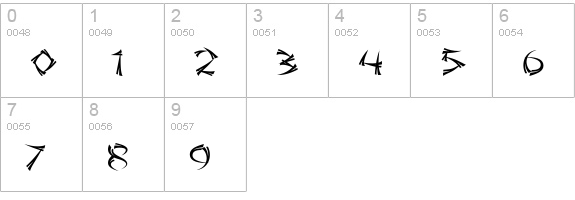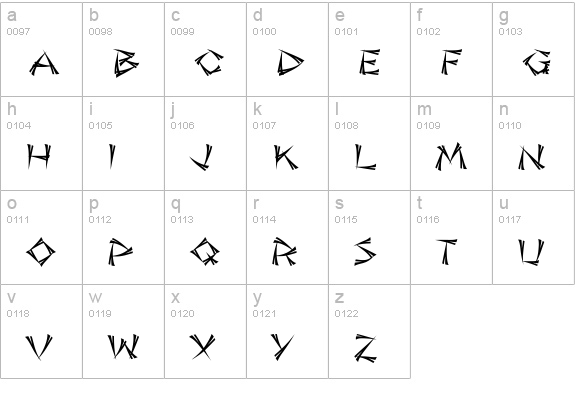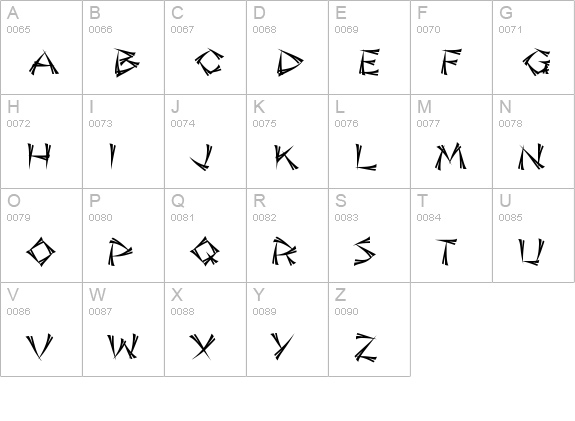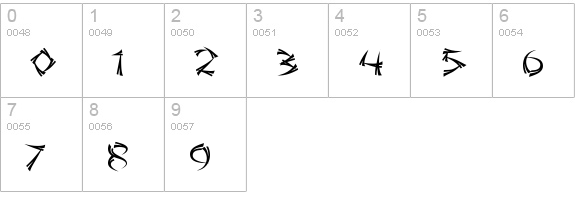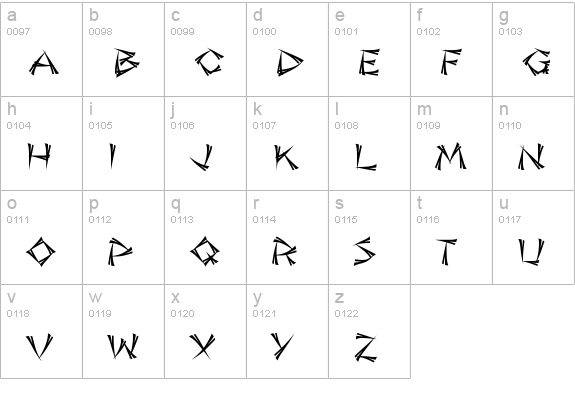
Introducing the stunningly unique Jade Monkey BTN Split font, a true masterpiece that combines elegance with a touch of modernity. This extraordinary typeface captivates with its intricate details and a captivating split design that adds a dynamic flair to any project. Jade Monkey BTN Split effortlessly blends sophistication and creativity, making it the perfect choice for branding, logos, invitations, and so much more. Its versatility knows no bounds, as it seamlessly adapts to both digital and print mediums, ensuring that your message is beautifully conveyed every time. But what truly sets Jade Monkey BTN Split apart is its remarkable feature - it's free! Yes, you read that right. This exceptional font is freely available to download at FontsMarket.com, allowing you to enhance your designs without any constraints. Whether you're a professional designer or a creative enthusiast, Jade Monkey BTN Split opens up a world of possibilities without costing you a dime. Crafted with meticulous attention to detail, Jade Monkey BTN Split boasts a wide range of characters, including upper and lowercase letters, numerals, punctuation marks, and various special symbols. Its clean lines and balanced proportions guarantee legibility, ensuring that your message is effortlessly communicated to your audience. Unleash your creativity and let Jade Monkey BTN Split be the perfect companion for your design endeavors. This font is truly a work of art that invites you to explore new horizons and break free from the ordinary. Experience the power of Jade Monkey BTN Split today and elevate your designs to new heights. Download this exceptional font for free at FontsMarket.com and embark on a journey of limitless creativity.